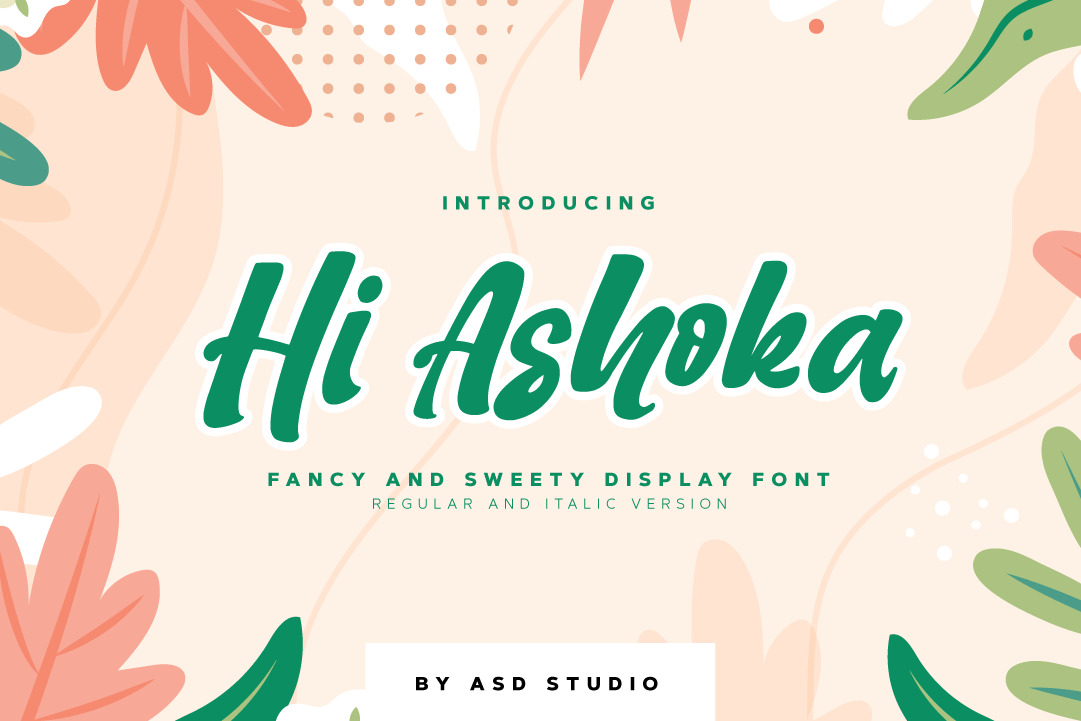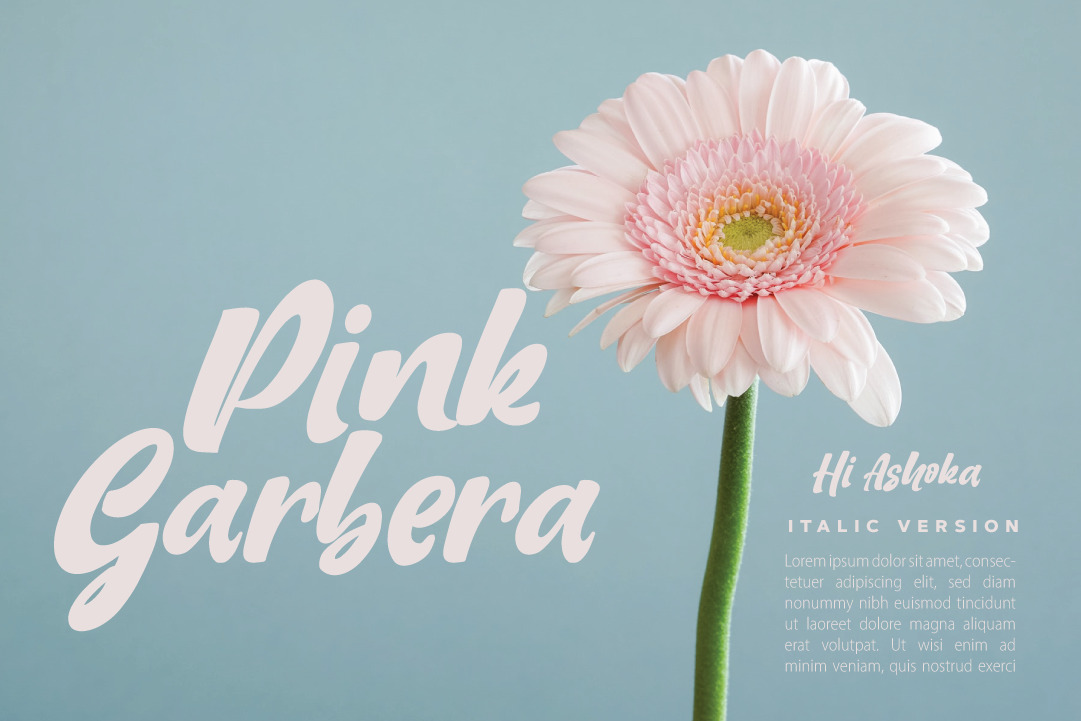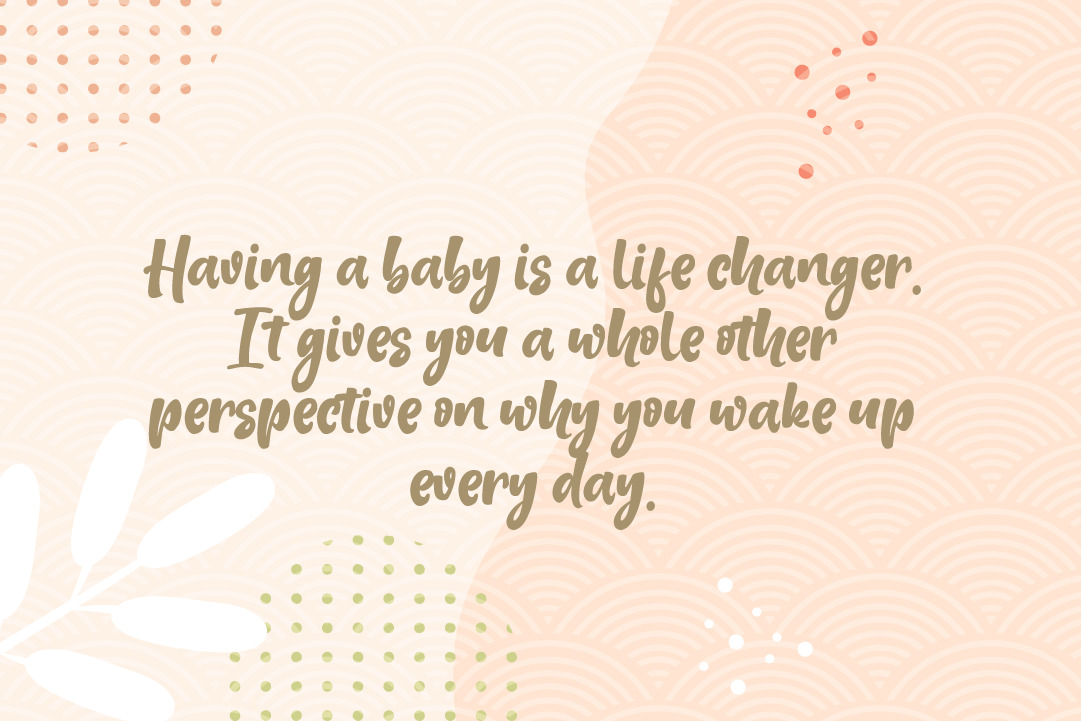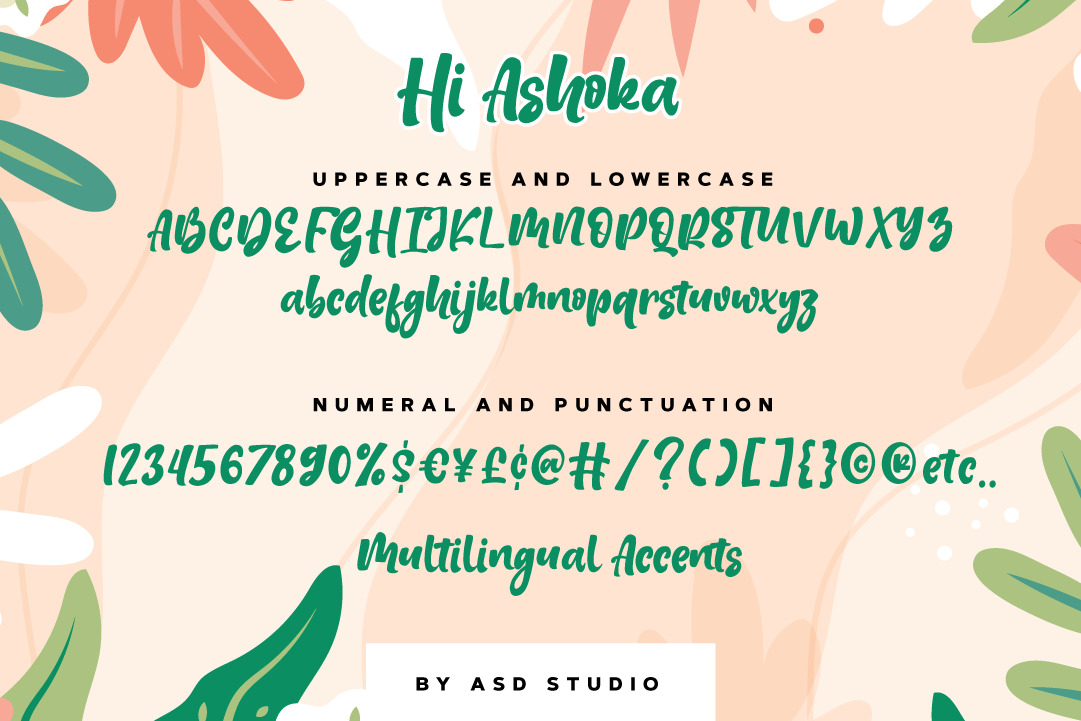
Hi Ashoka Font
Introducing the new font Hi Ashoka - Fancy and Sweety Display Font. This font suitable for use in a variety of design fields, such as event advertisements, product promotions, mug design, book titles, activity titles, logos, and others. This font can when paired with serif font types will make your design project more beautiful and perfect.
- Number & punctuations
- Multilingual Accents
- Regular and Italic version